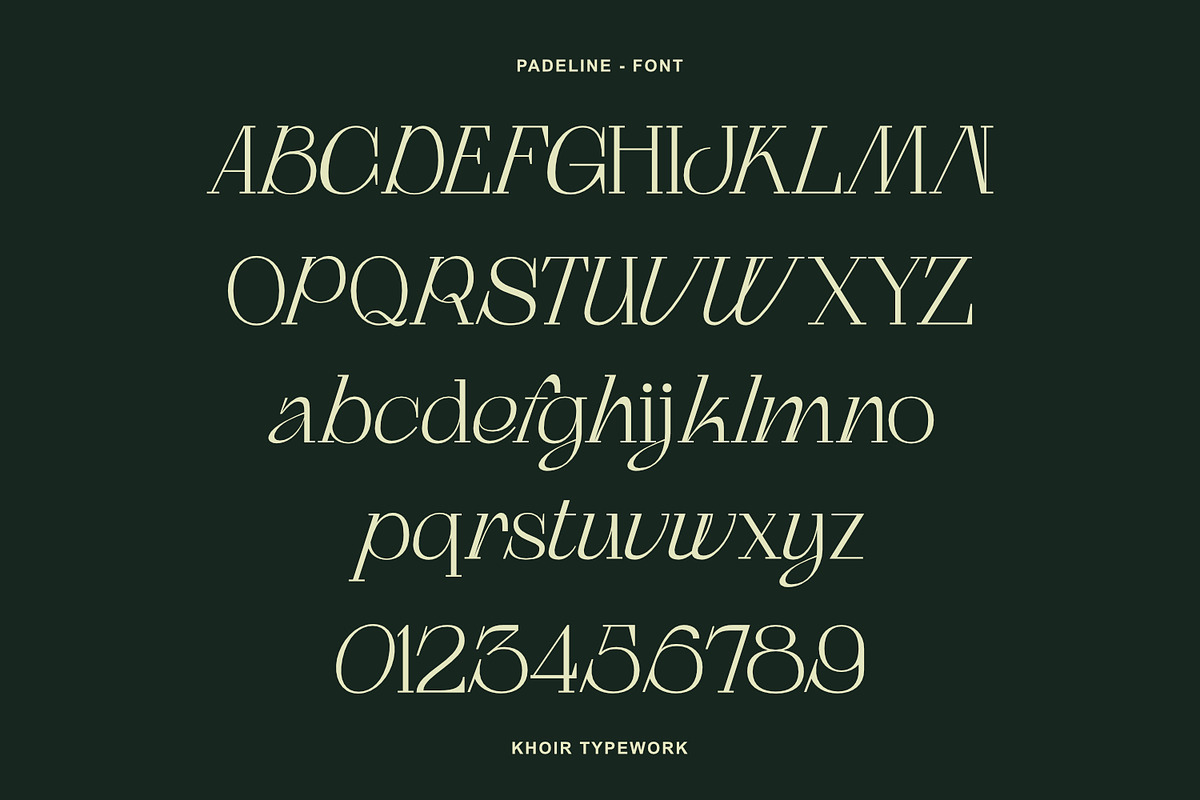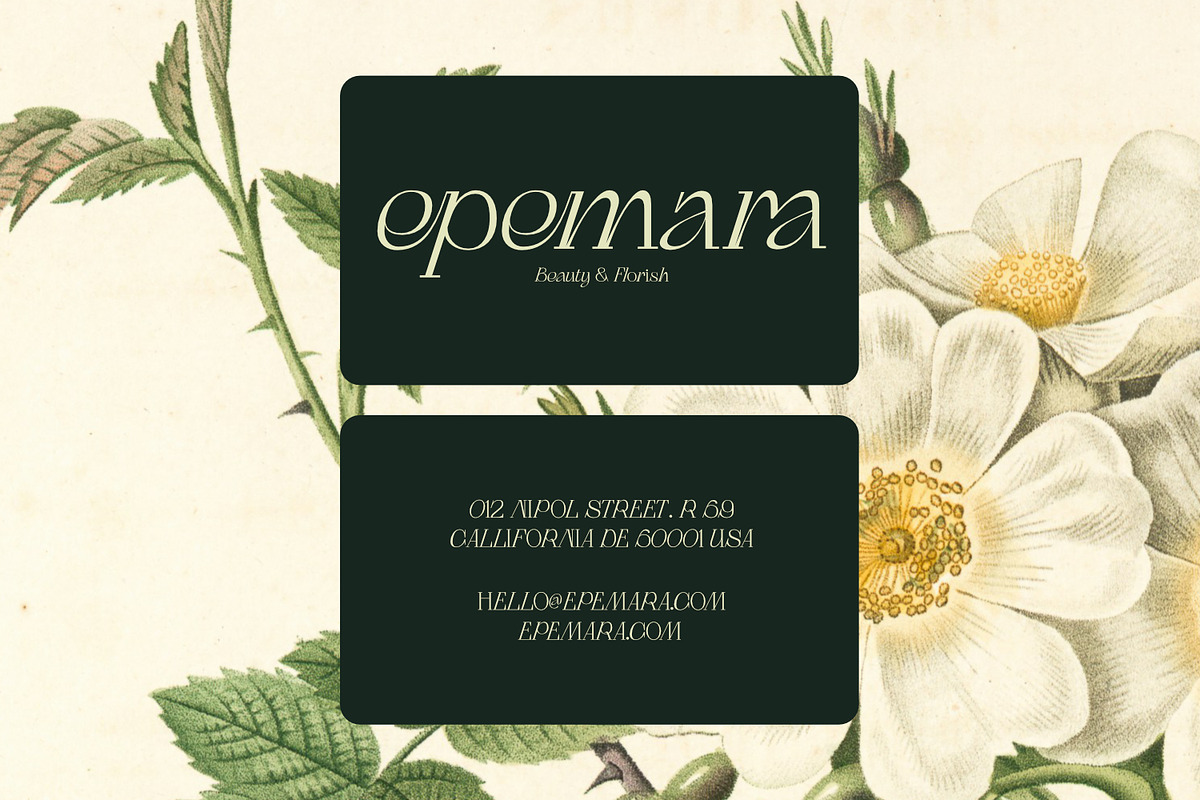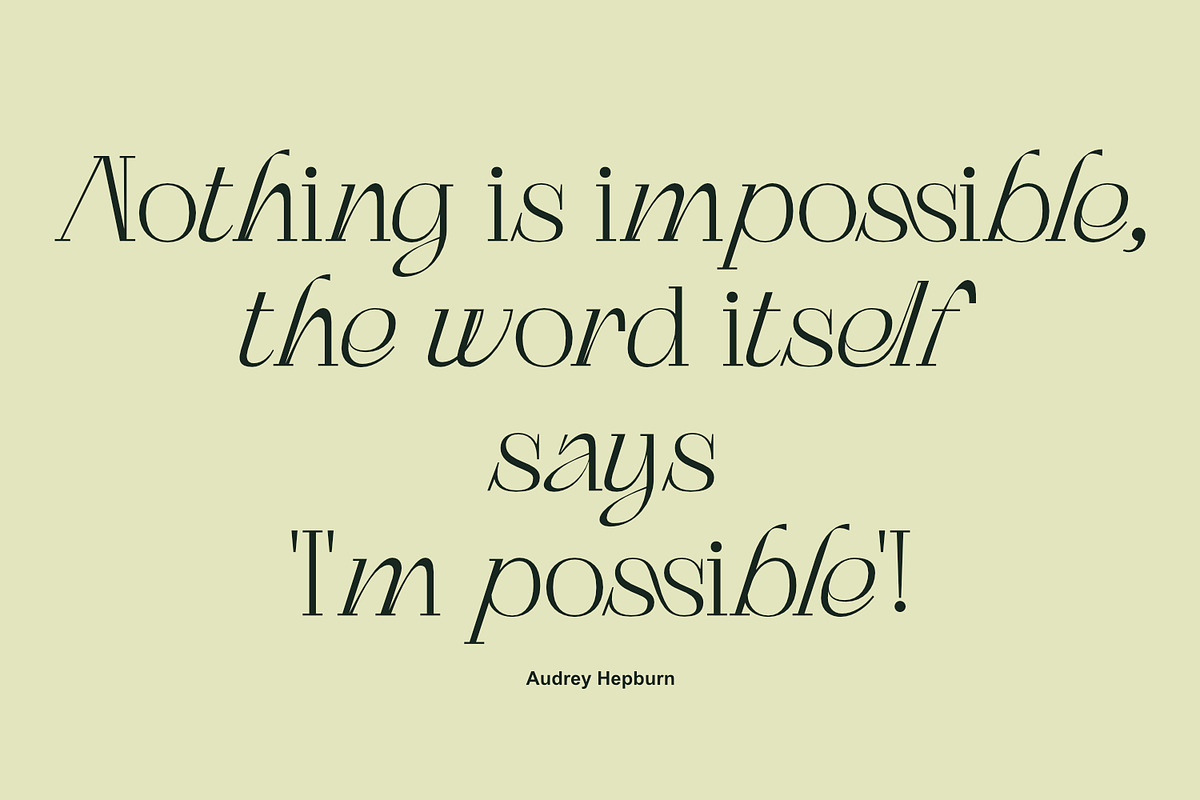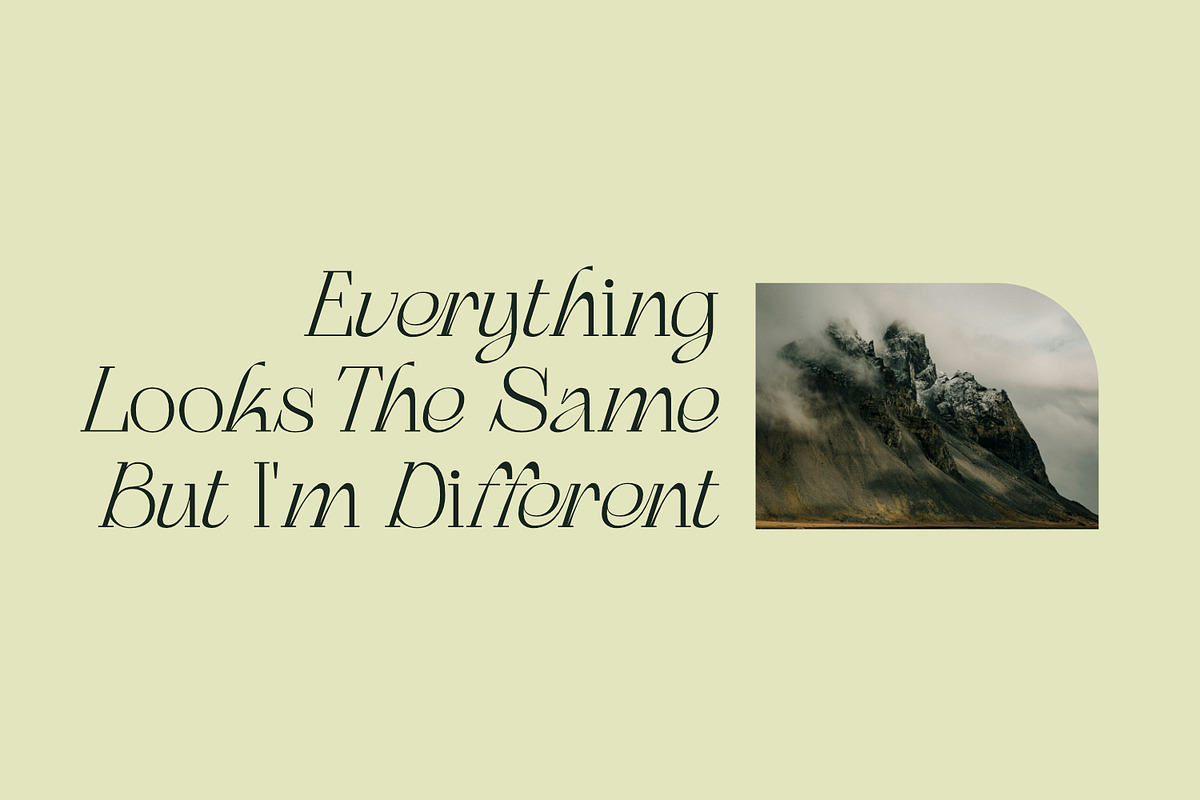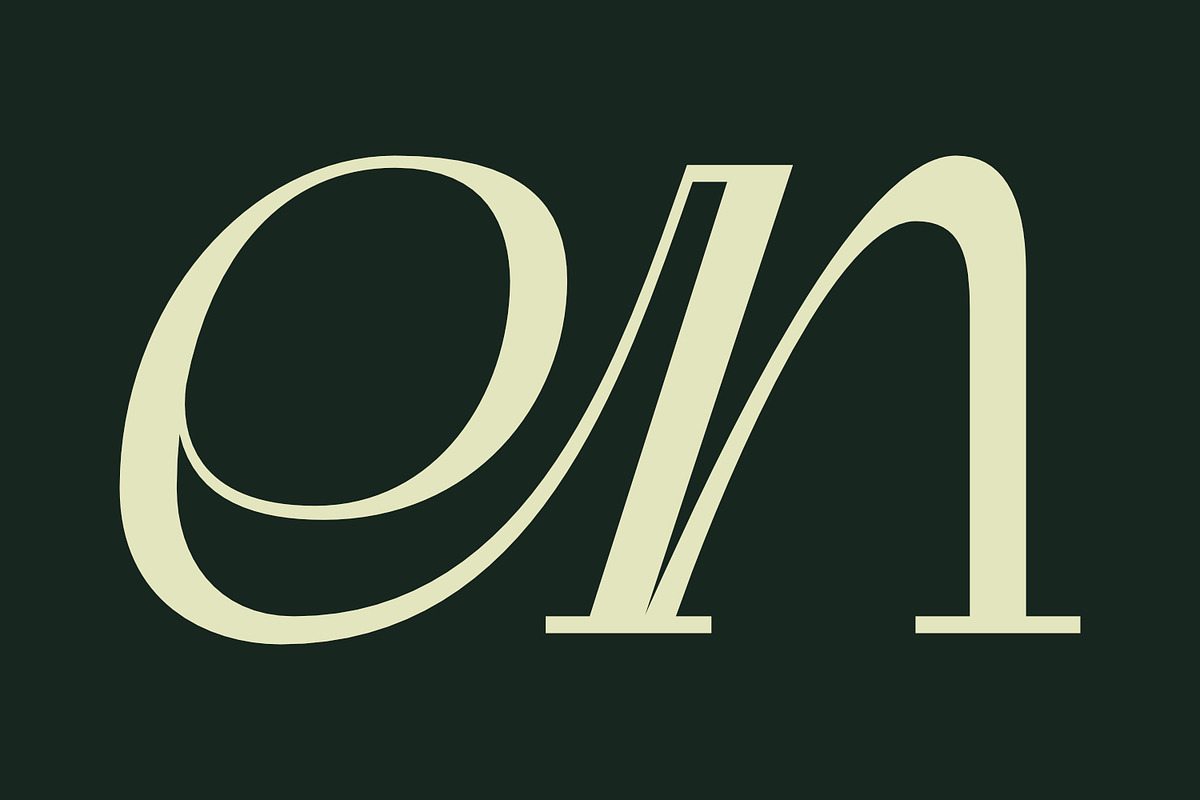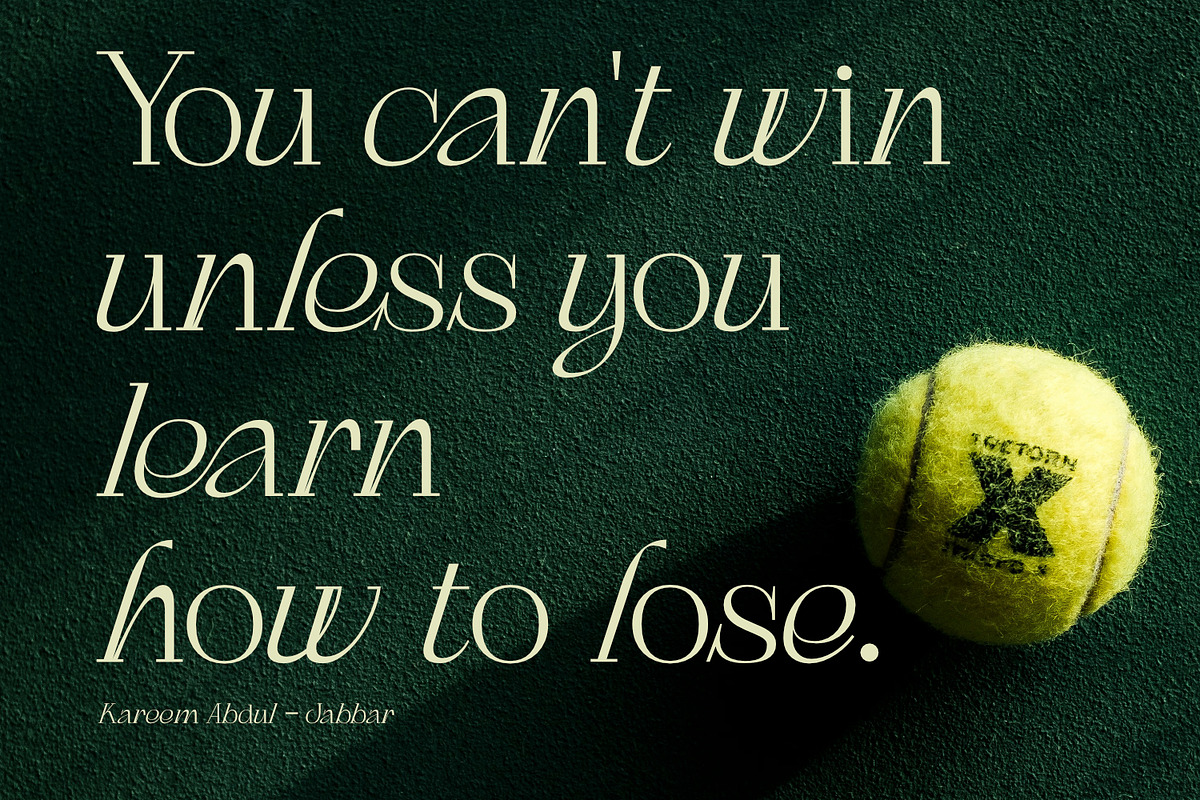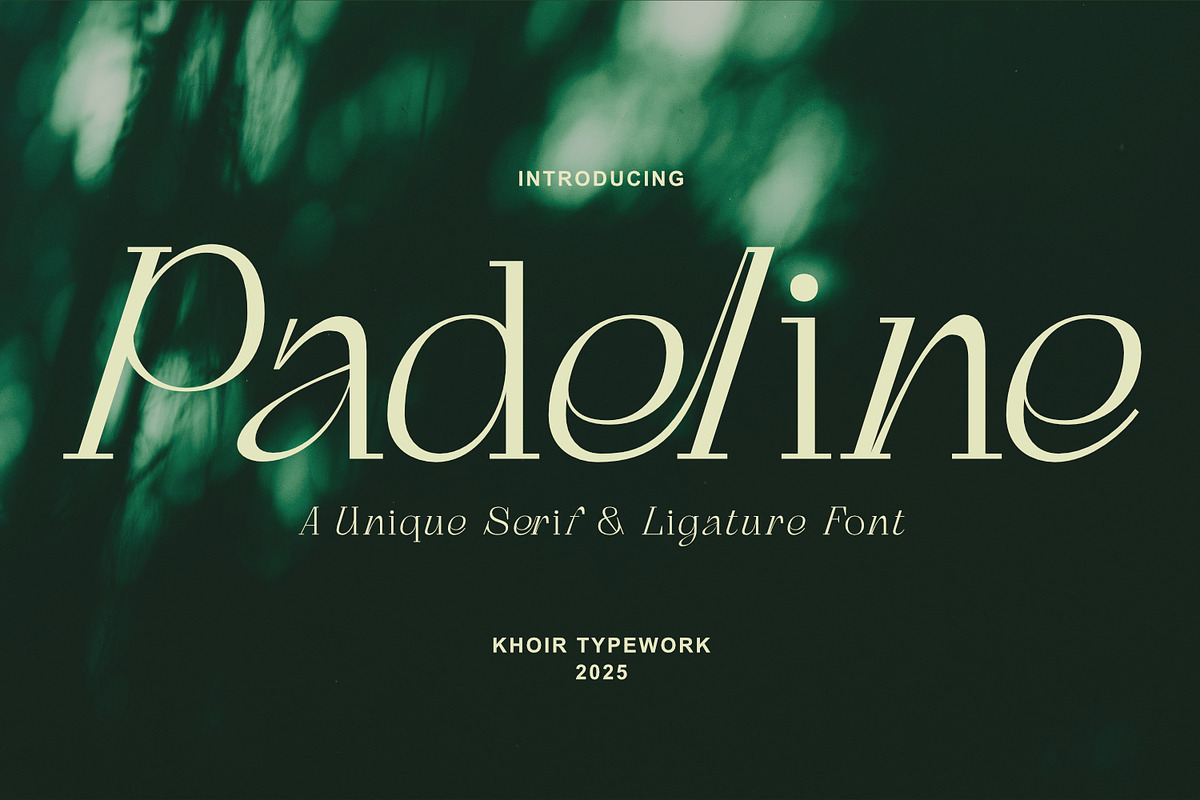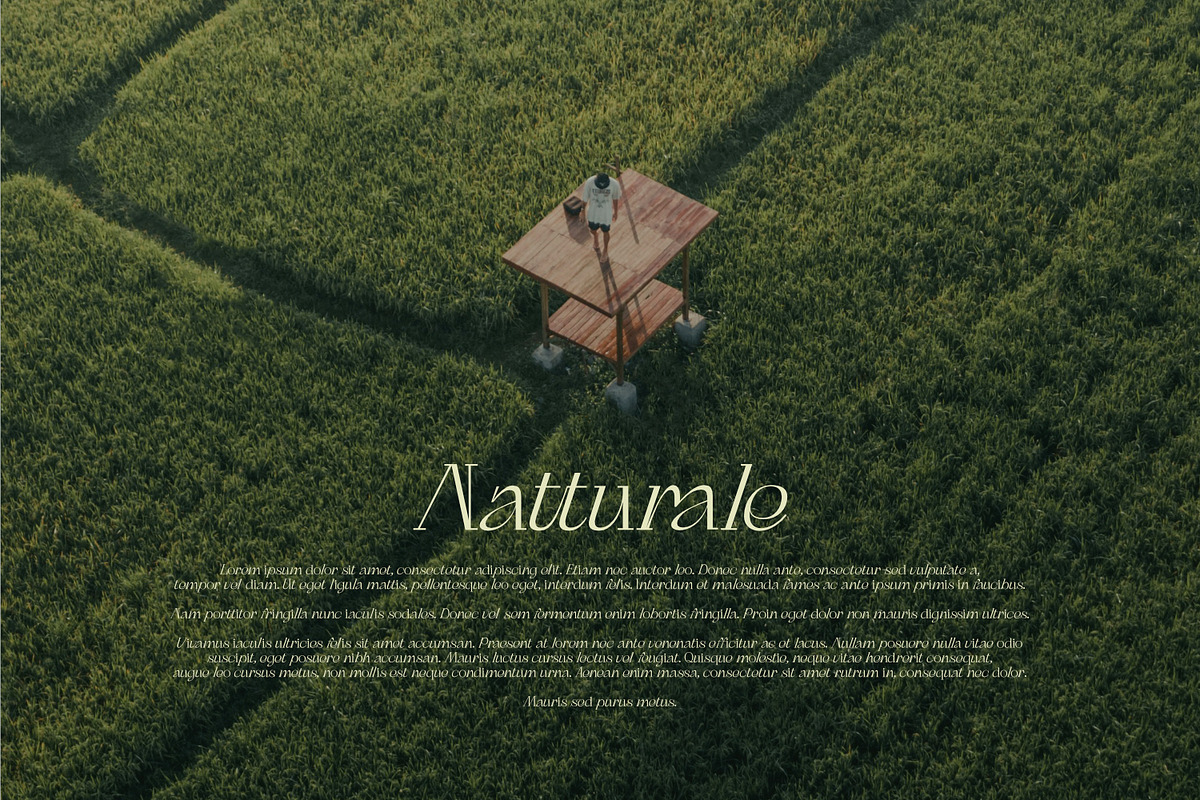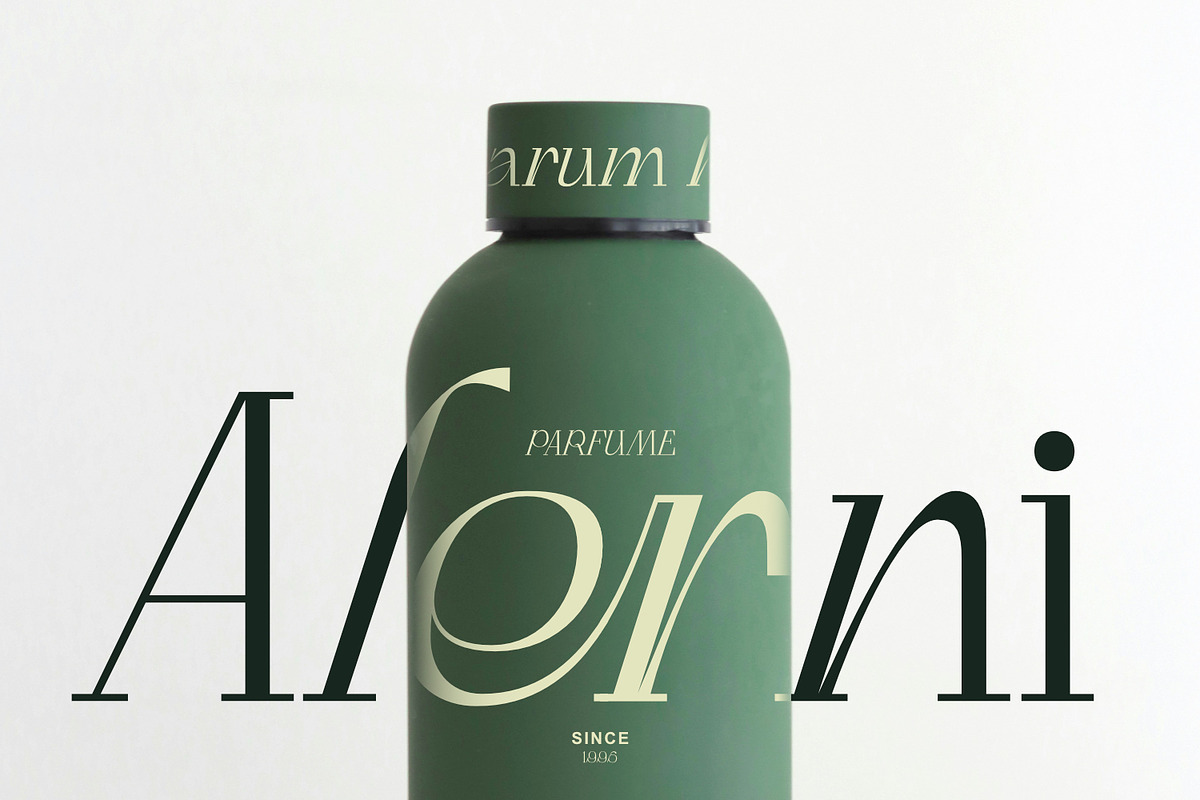
Padeline - Unique Serif
A modern serif with a random letter composition, but this impression is what sets it apart from other serif fonts and gives it character. It has alternates and ligatures that help it feel natural and elegant.
- 75+ Language
- Alternates Font
- Ligature Font